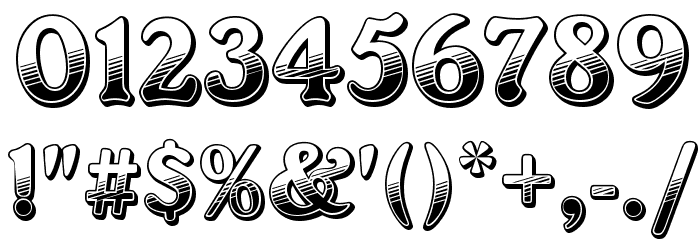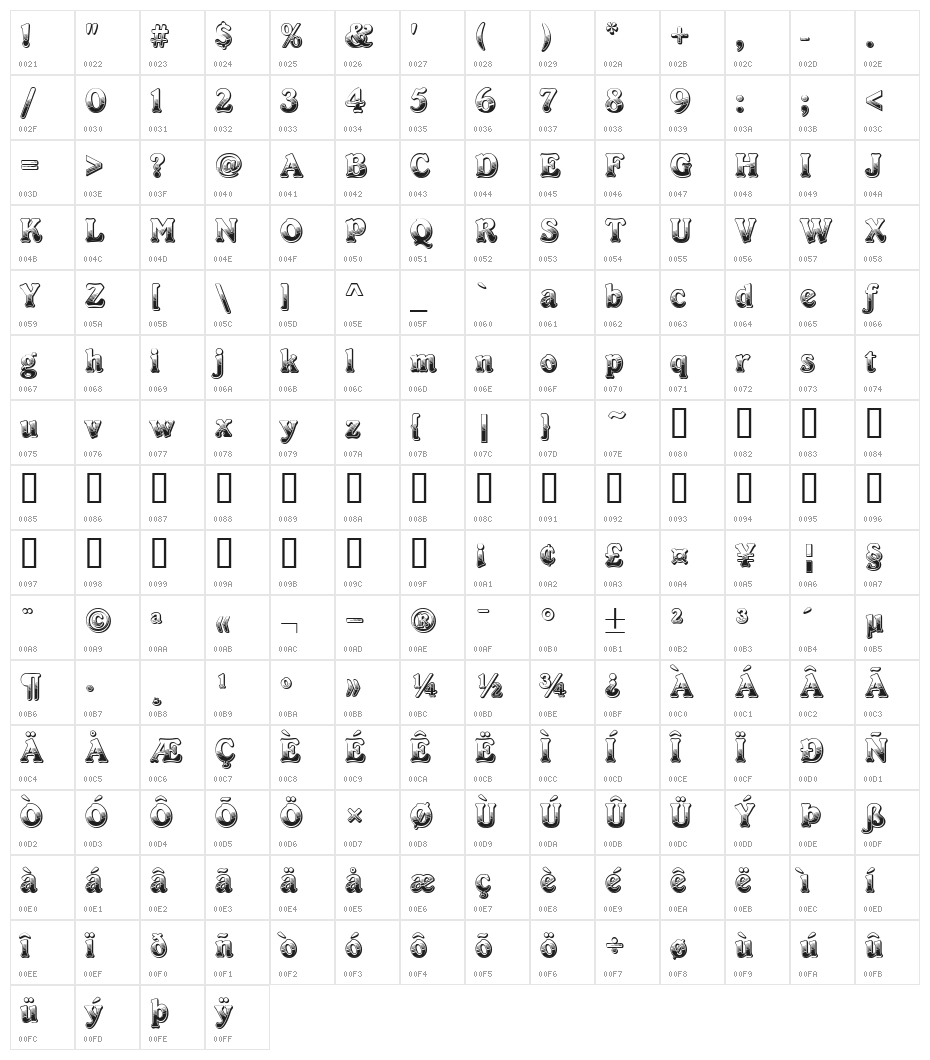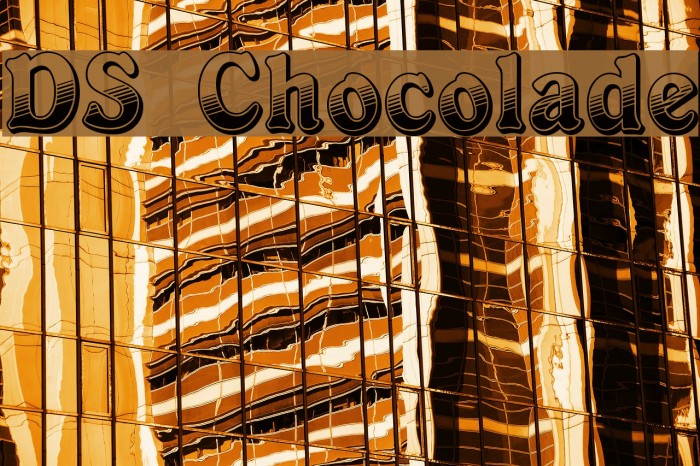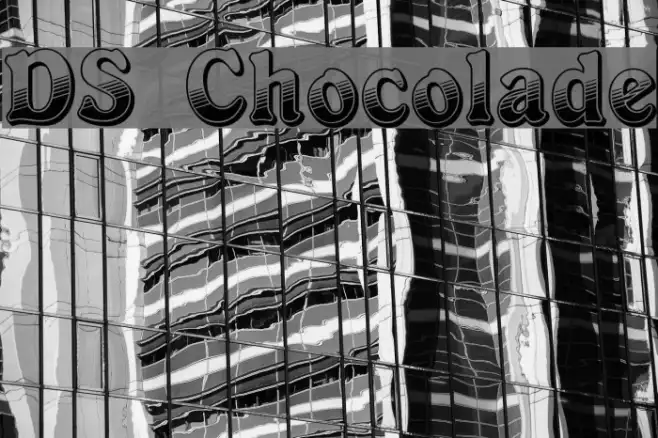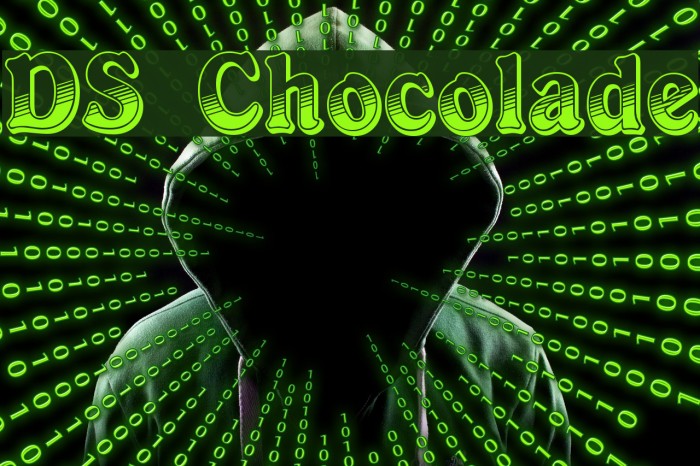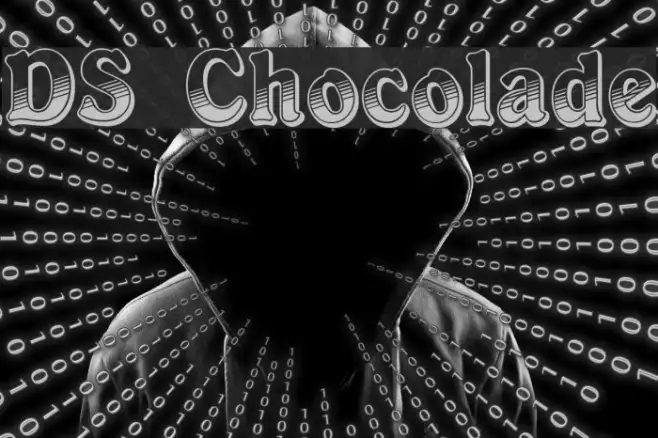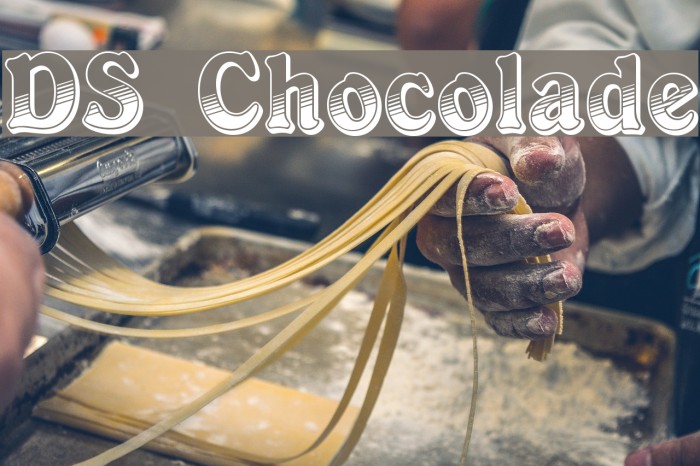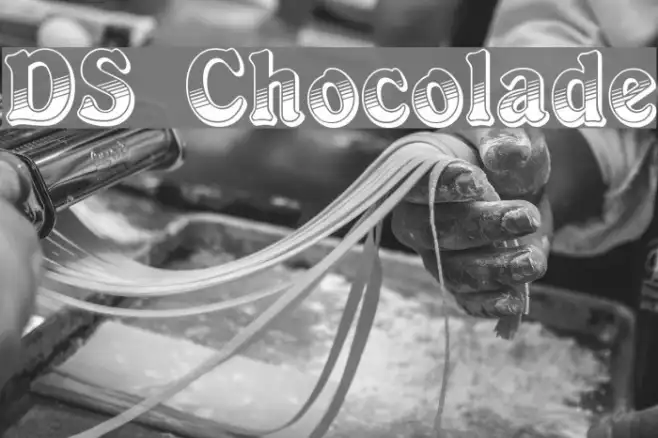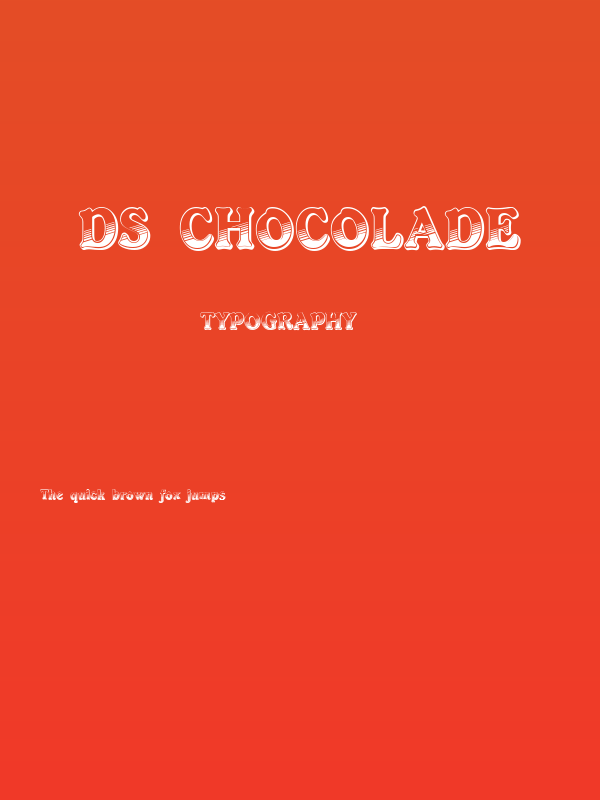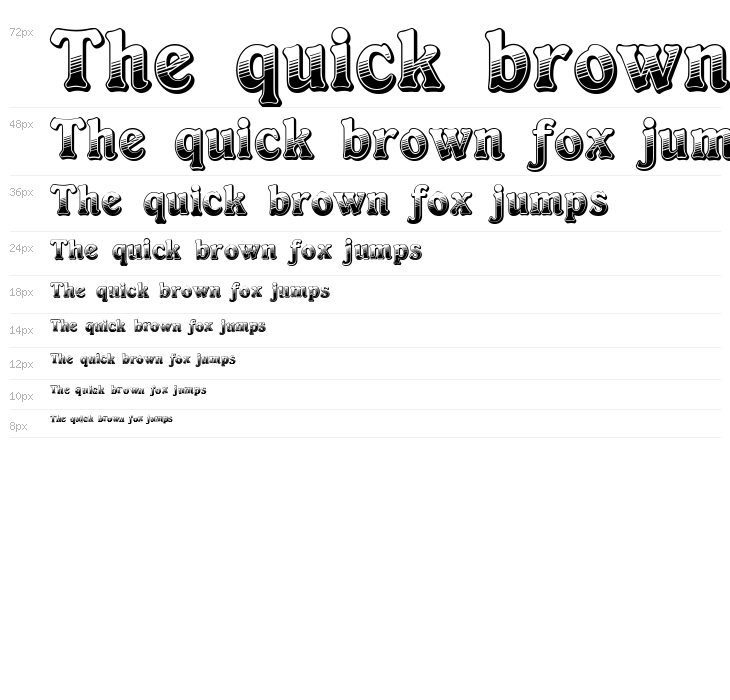
DS Chocolade Font
DS Chocolade Description
This font features a bold, decorative style with a playful and whimsical flair. Each character is outlined with a thick, black shadow that gives a three-dimensional effect, enhancing its visual impact. The letters are slightly rounded, adding a soft touch to the overall design. The font includes both uppercase and lowercase letters, numbers, and a variety of special characters. Its unique design makes it stand out, making it suitable for eye-catching headlines or creative projects. The strokes are consistent in width, providing a uniform appearance across all characters.
Proposed ProjectsIdeal for posters, children's book covers, playful branding, and creative advertisements.